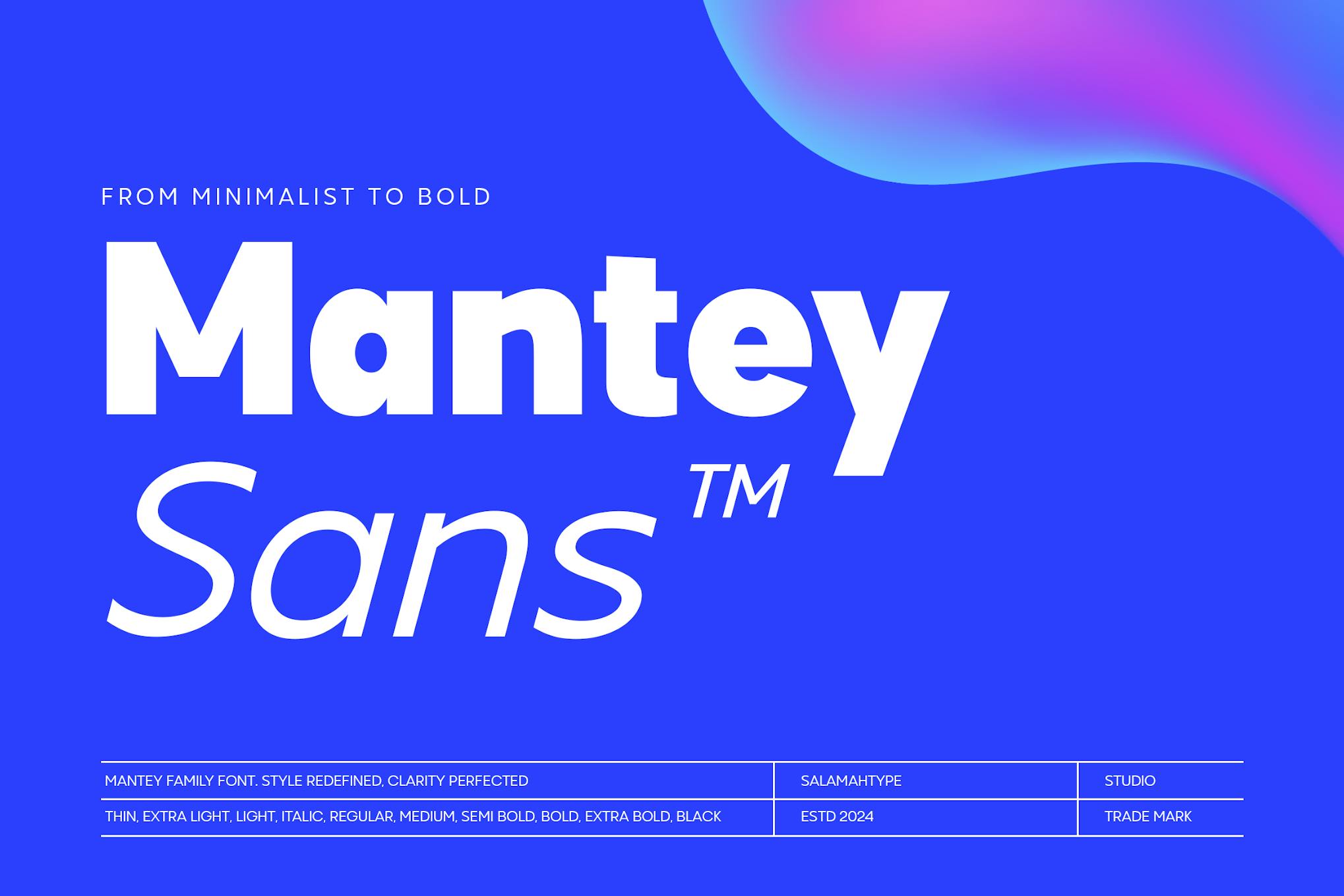
Mantey Font
Mantey Font is ideal for contemporary branding projects, modern logo design, editorial headlines, digital magazine layouts, corporate presentations, website typography, social media graphics, advertising campaigns, and sophisticated packaging design.
What makes Mantey Font exciting is its distinctive character that seamlessly blends geometric precision with organic warmth, creating a unique typographic voice that stands out in today's crowded design landscape. This innovative typeface features carefully balanced proportions and subtle personality quirks that add charm without sacrificing professionalism. The font's versatile nature allows it to adapt effortlessly between playful applications and serious corporate communications, making it an invaluable tool for designers seeking typography that can evolve with their brand's changing needs.
Mantey Font family includes comprehensive weight options: Thin, ExtraLight, Light, Regular, Medium, SemiBold, Bold, ExtraBold, and Black, each available in both upright and italic styles. This extensive range provides 18 distinct fonts that offer exceptional flexibility for creating sophisticated typographic systems and maintaining brand consistency across diverse applications.
Design professionals choose Mantey Font for its reliability and distinctive appeal. The font's balanced stroke contrast and optimized spacing make it particularly effective in both display and text applications. Its contemporary aesthetic appeals to modern audiences while maintaining timeless qualities that ensure longevity in brand systems.
Whether used for startup branding or established corporate redesigns, Mantey Font consistently delivers sophisticated typography that communicates professionalism, creativity, and forward-thinking vision that resonates with contemporary audiences.